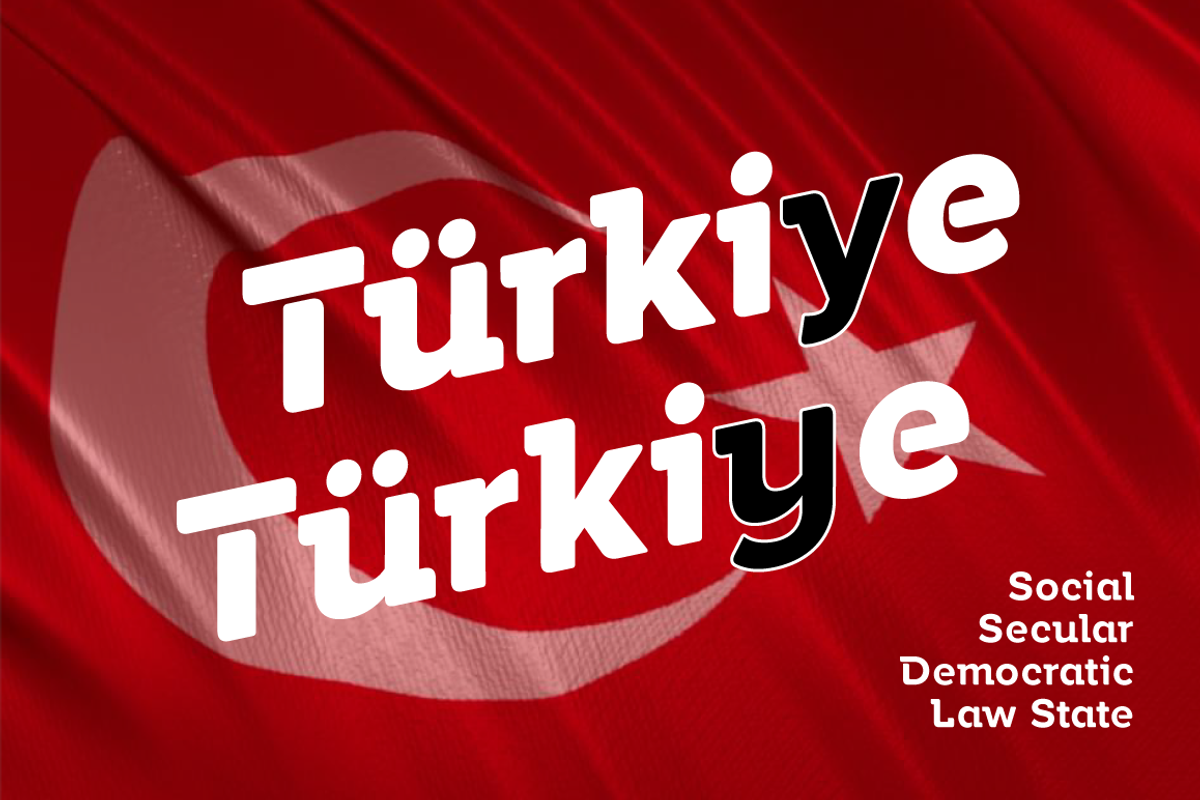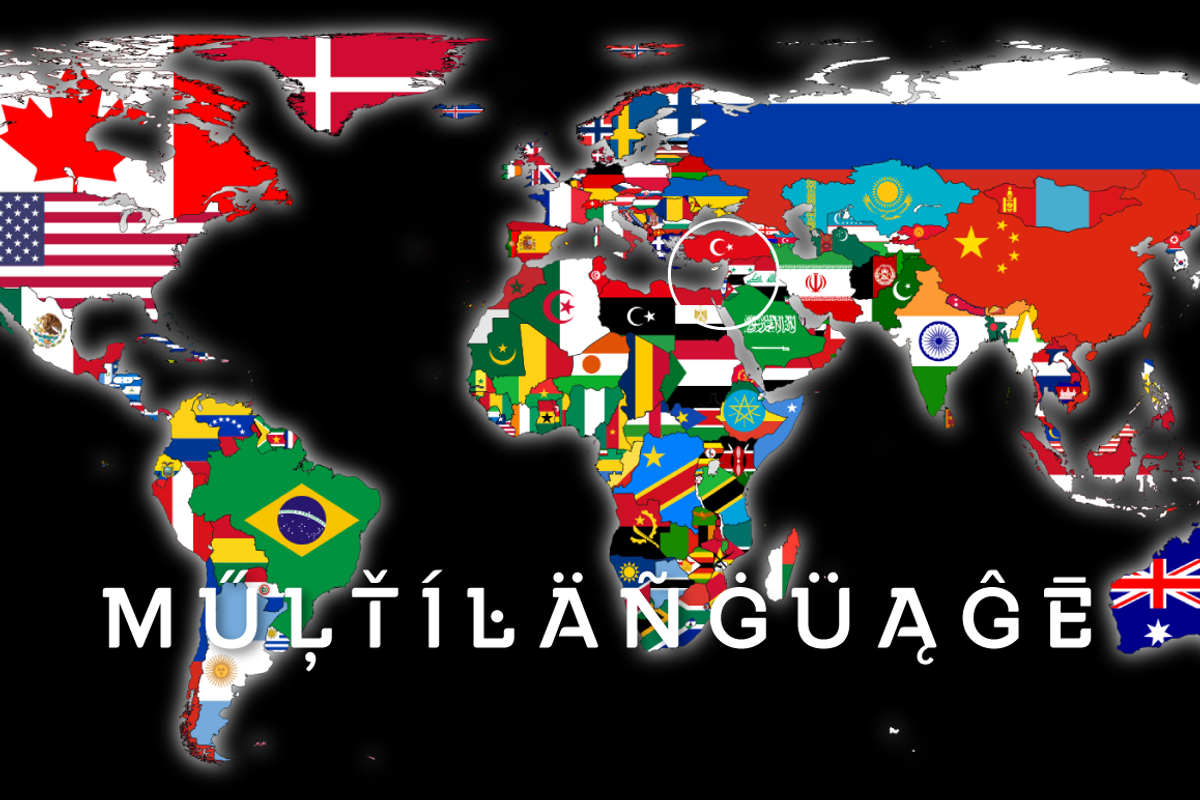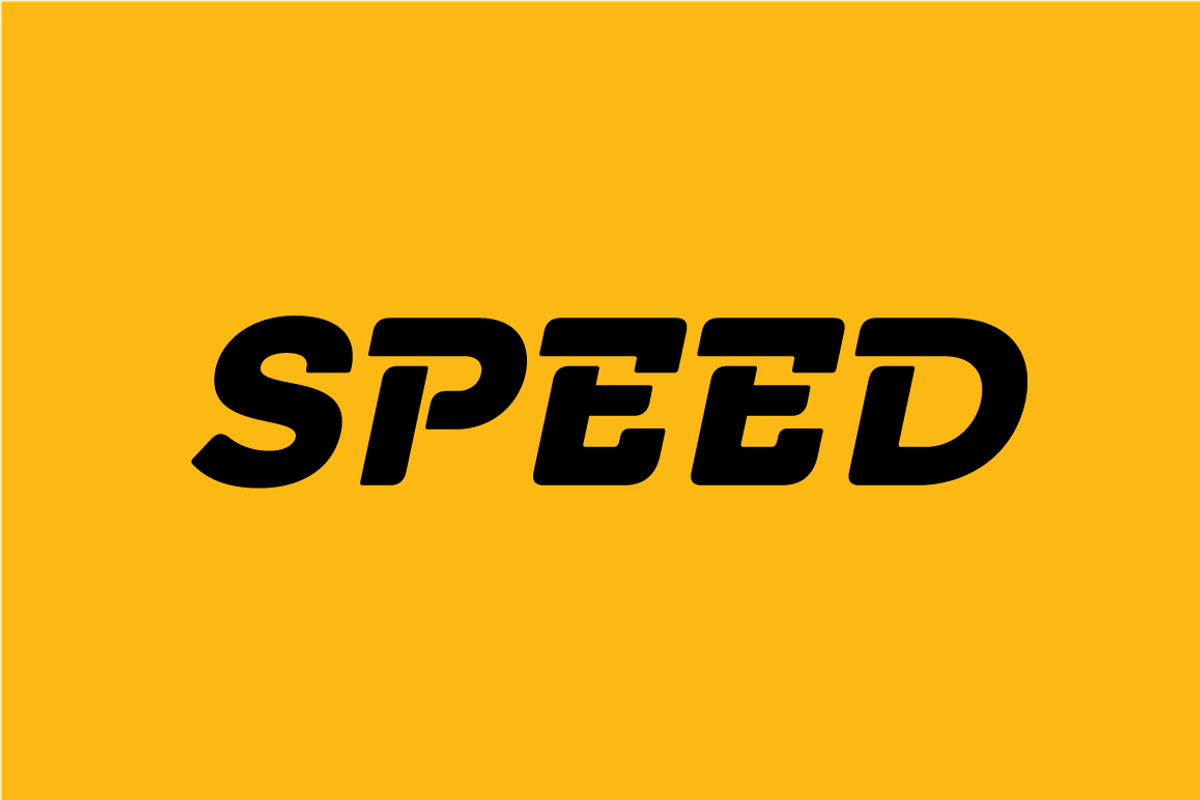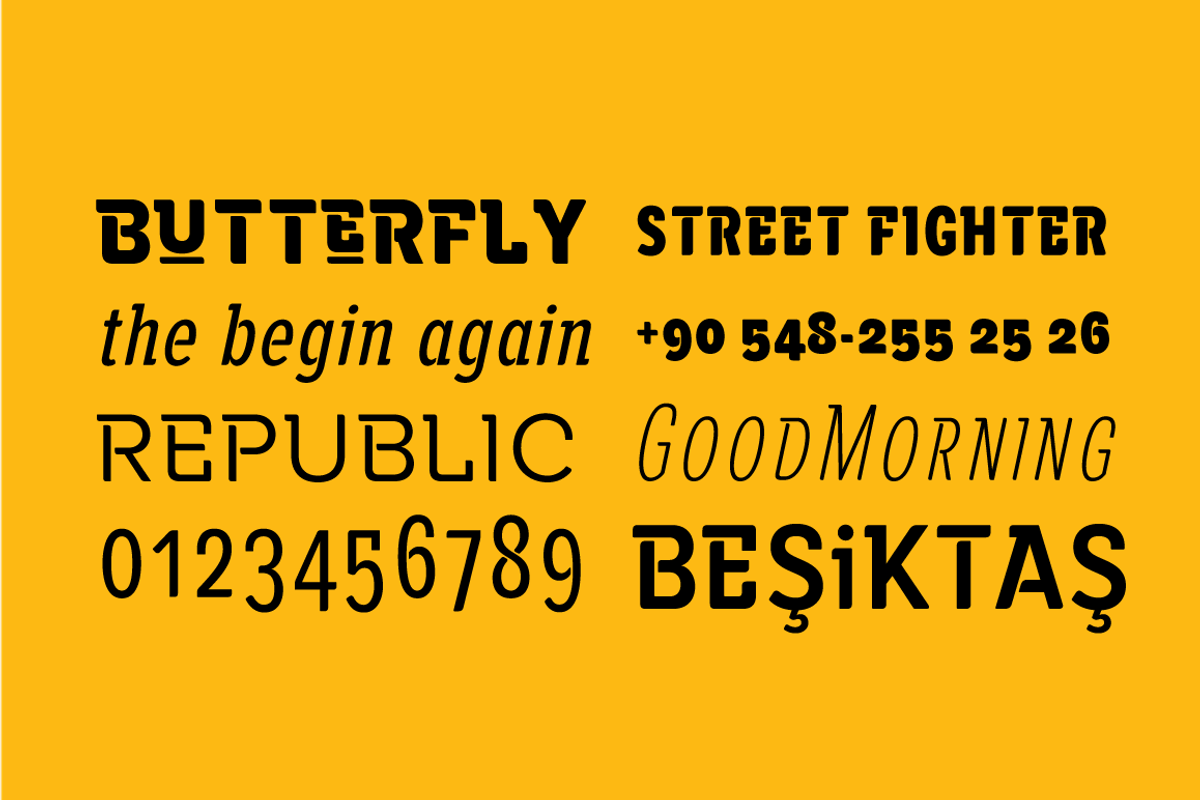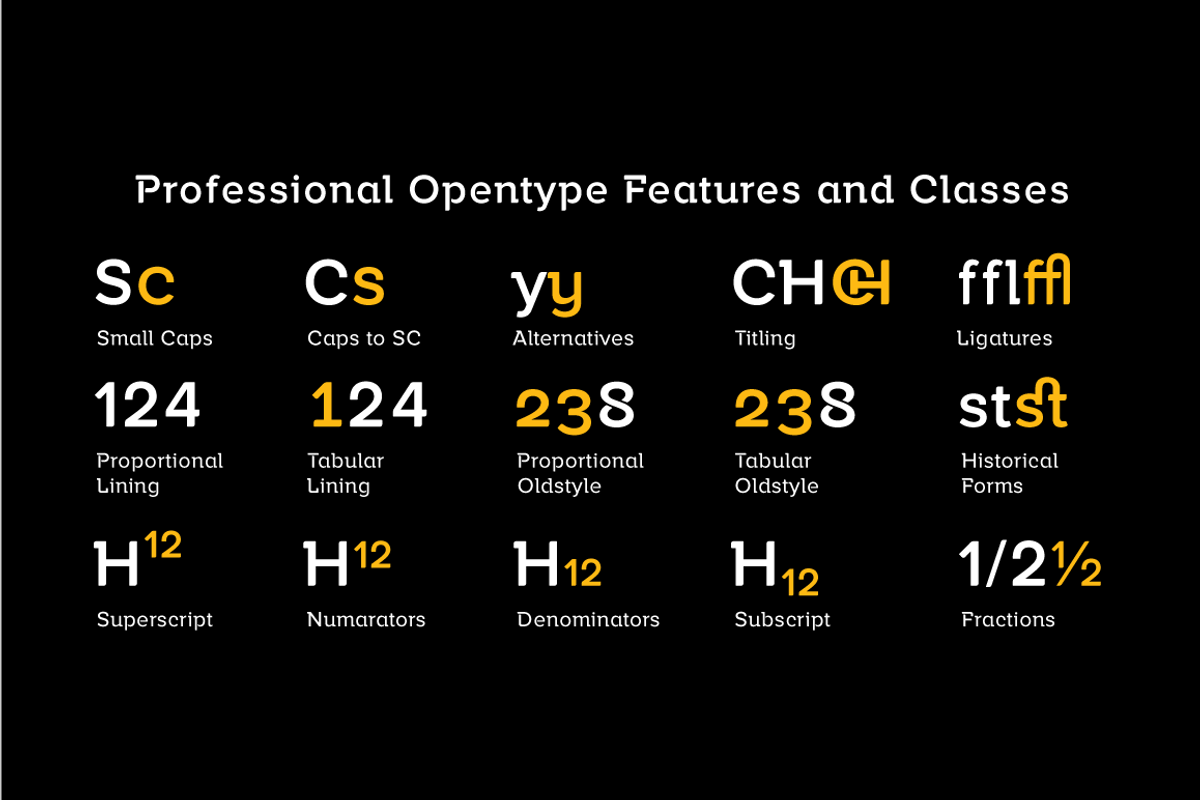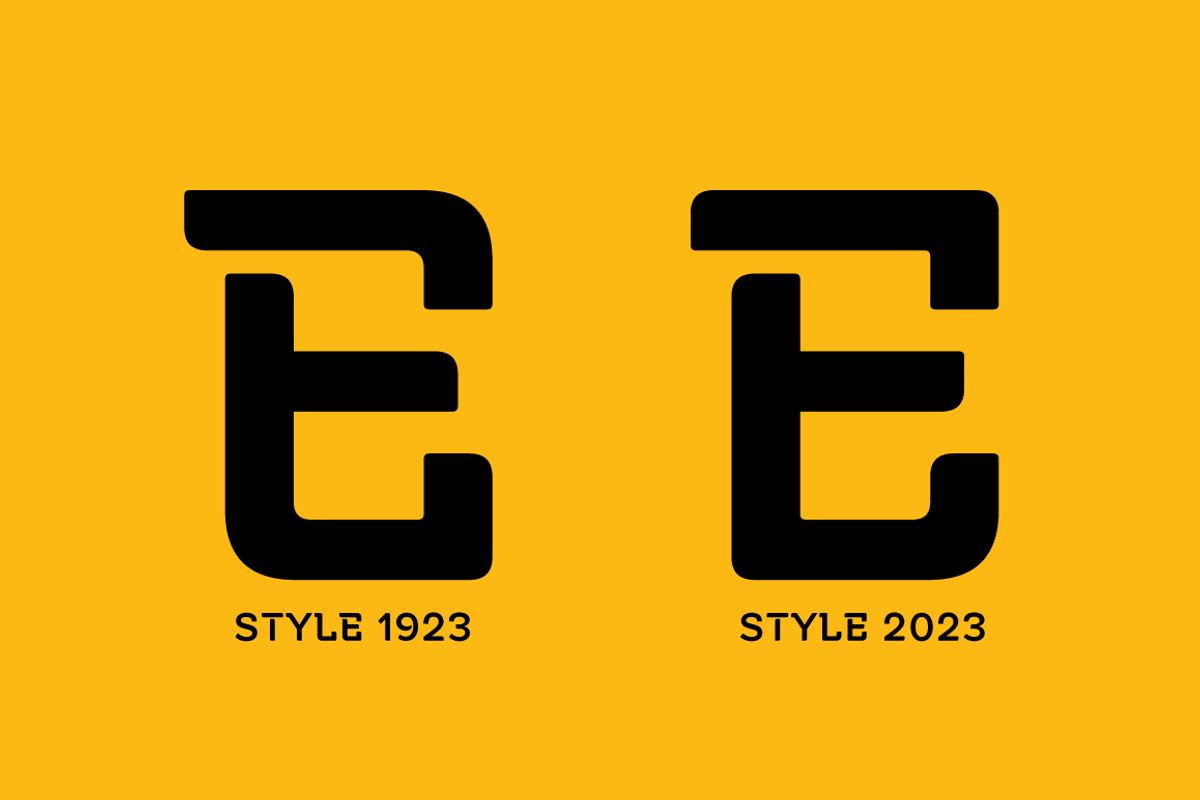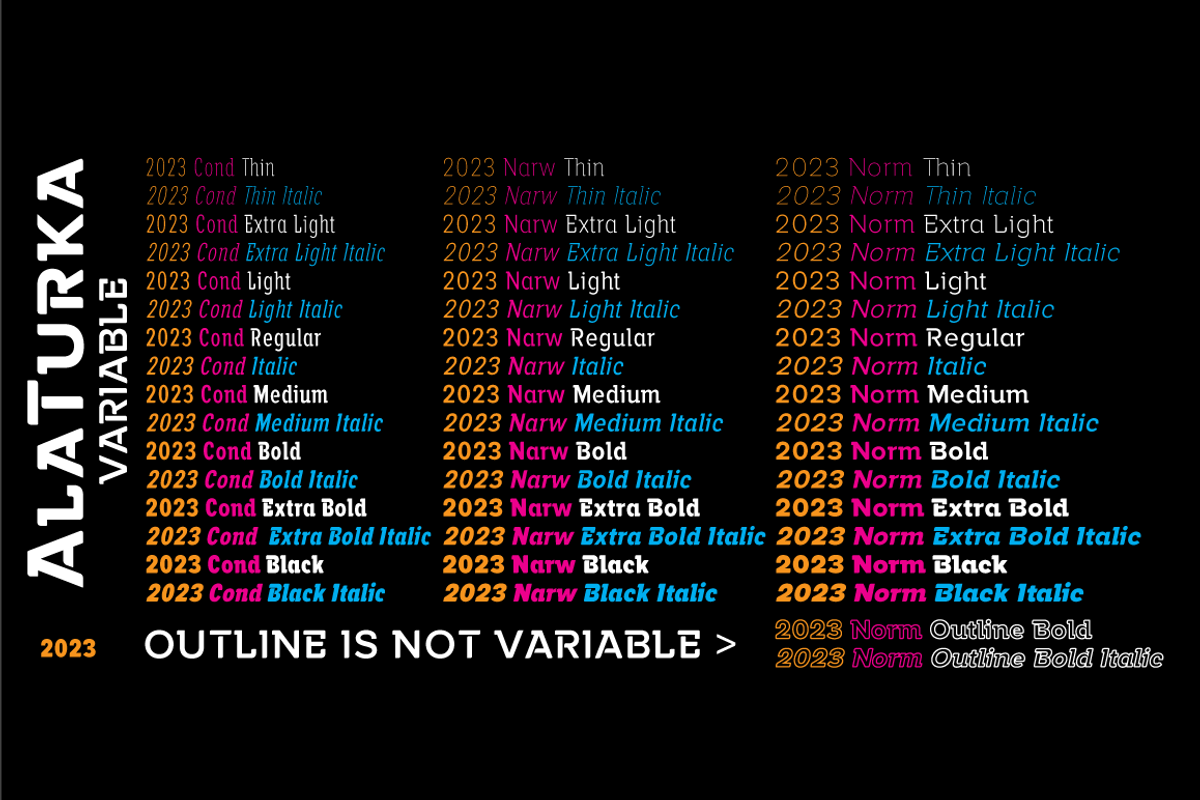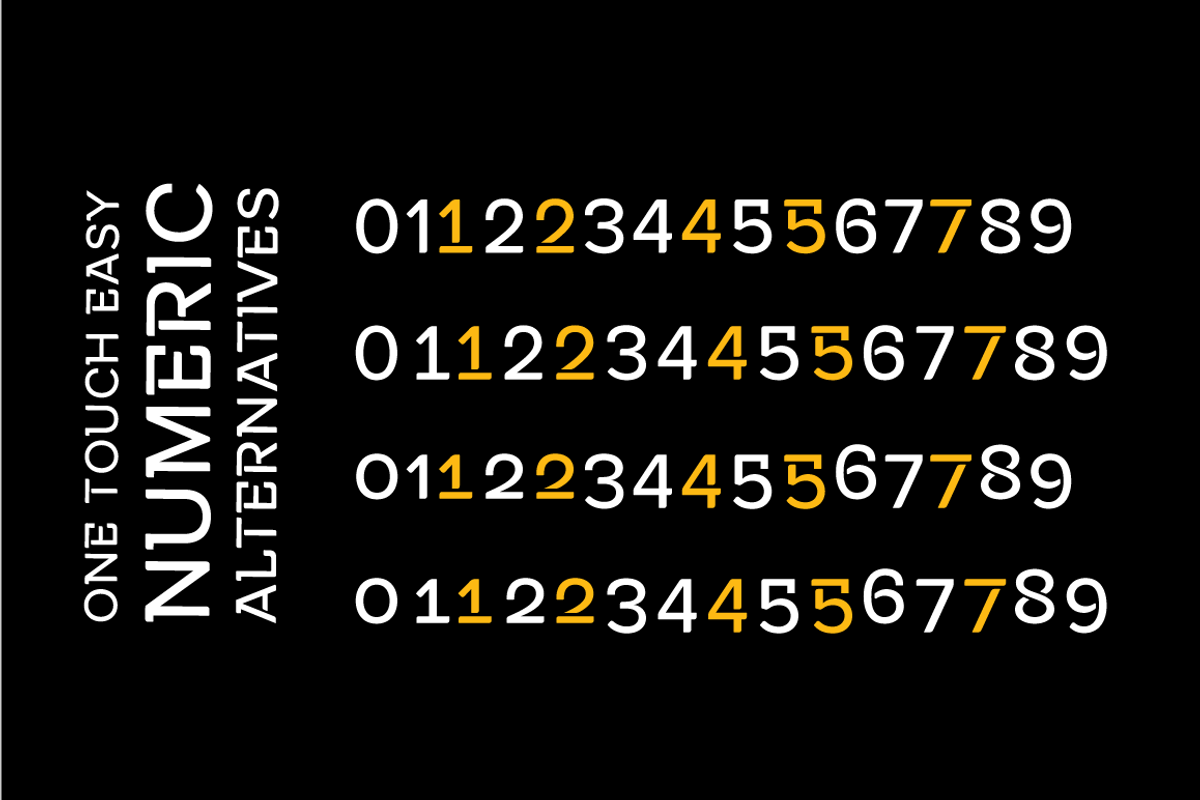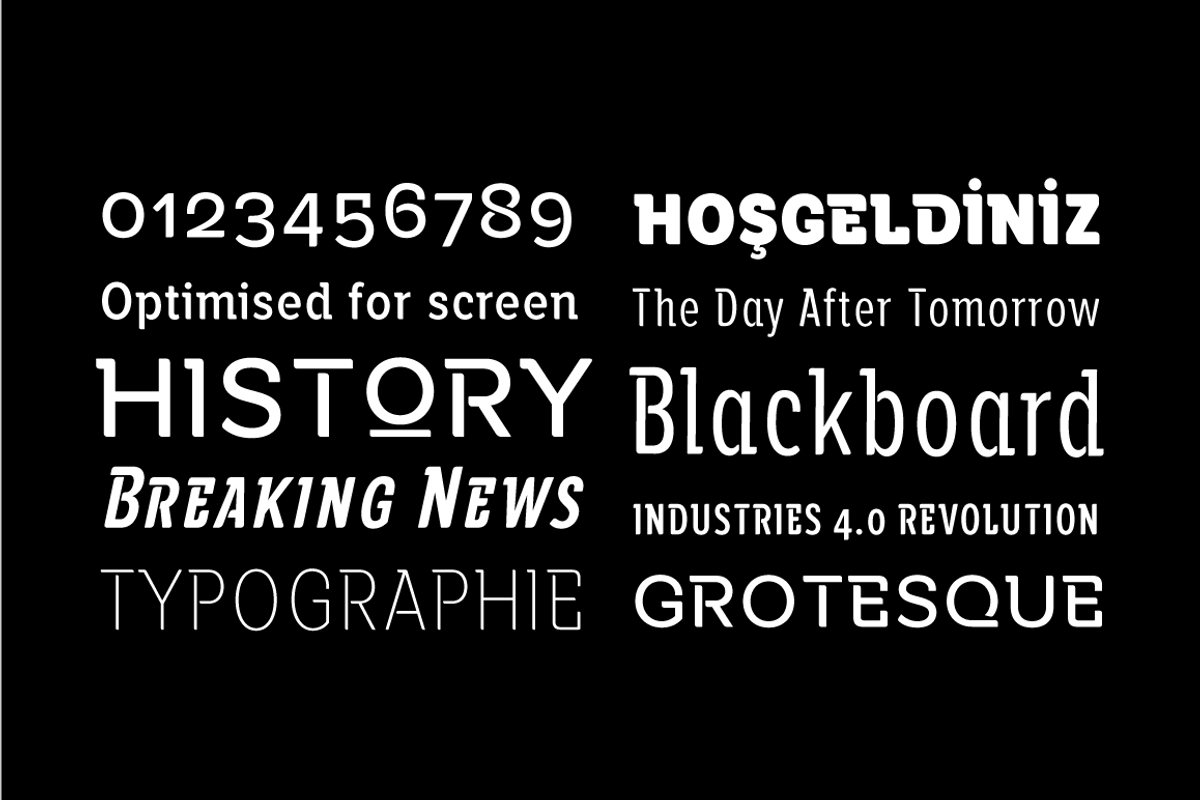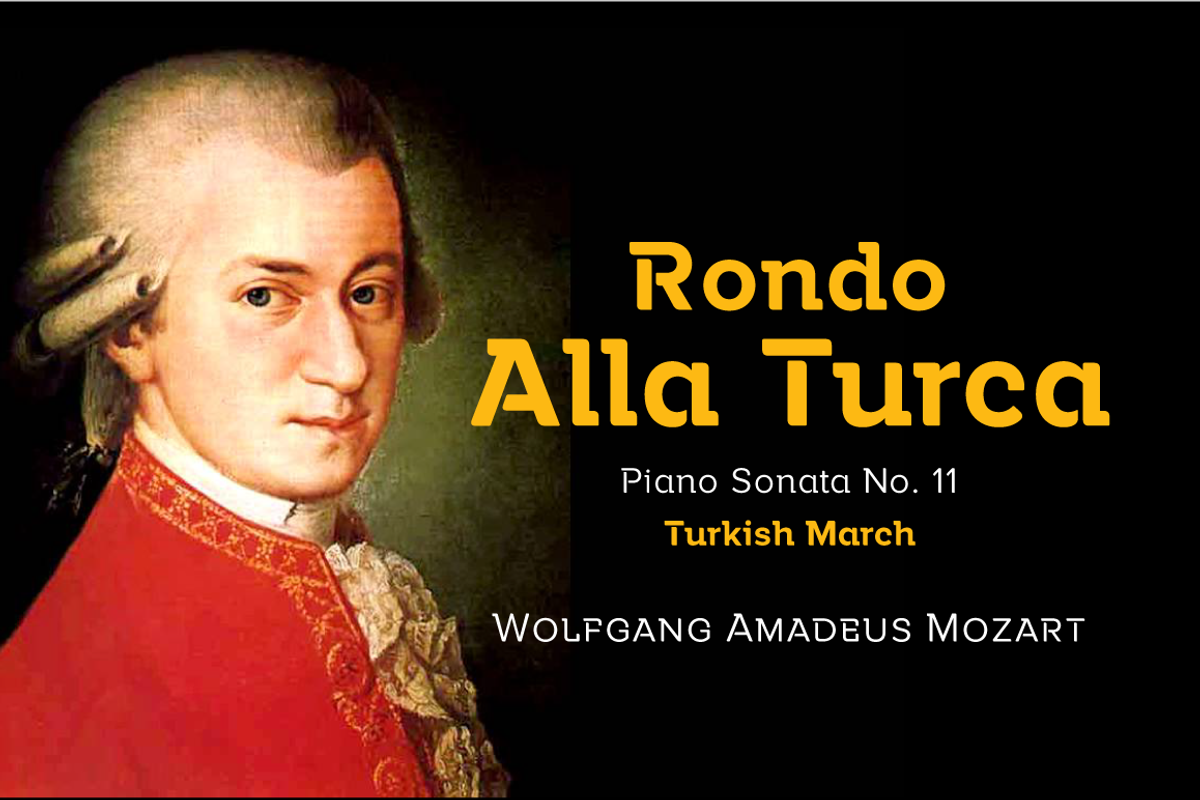
Alaturka Variable
ABOUT FAMILY:
What makes "Alaturka Variable" elegant, friendly and contemporary is its very rounded curves with very open terminals.
"Alaturka" has been designed with a higher "x-height" than other fonts in its class to make tiny readability more obvious in any use situation. It will be ideal for use in small sizes such as business cards or mobile applications.
This typeface is also equipped with powerful OpenType features to satisfy the most demanding professionals. It has solid features like case sensitivity, small, true capitals, full ligatures, tabular figures for tables, old-style figures to elegantly insert numbers into your sentences, and more alternative characters to give personality to your projects.
FEATURE SUMMARY:
2 style: 1From 1923 To 2023
8 weights: Thin, Extra Light, Light, Regular, Medium, Bold, Extra Bold, and Black.
3widths: Normal, Narrow, and Condensed.
Matching italics (12º) for all weights and widths.
Matching small caps for all weights and widths.
Lining and old-style figures (proportional and tabular).
Some alternate characters
Unlimited fractions.
Automatic ordinals (1st, 2nd, 3rd, etc.).
Extended language support: Most Latin-based scripts
Extended currency support.